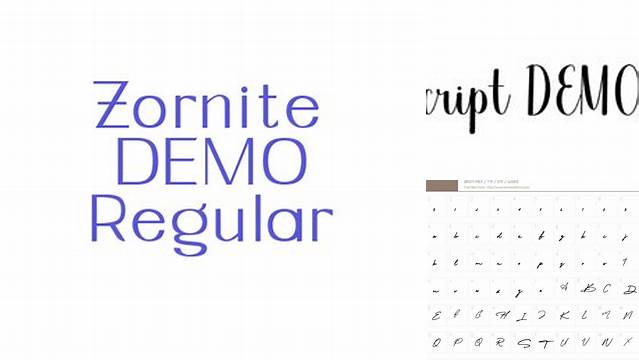
Hey guys! Ever find yourself scrolling through endless font options, trying to find that perfect script font for your project? It's a struggle we all know too well. You want something elegant, readable, and, let's be honest, free. That's why we're diving deep into the world of free script fonts demo regular today! We'll explore why these fonts are awesome, where to find them, and how to use them like a pro. So, buckle up, font fanatics, and let's get started!
What Makes Free Script Fonts Demo Regular So Appealing?
Free script fonts demo regular fonts offer a unique blend of style and practicality. They're the perfect way to add a touch of personality to your designs without sacrificing readability. Think about it: a beautiful script font can elevate your invitations, logos, website headers, and so much more. But what exactly makes them so appealing? It's the combination of their flowing lines, elegant curves, and the sense of handcrafted artistry they bring to any project. These fonts bridge the gap between formal and casual, making them incredibly versatile for a wide range of applications. Imagine adding a flourishing script to your wedding invites or using a clean, modern script for your business cards. The possibilities are endless!
Where to Find the Best Free Script Fonts Demo Regular
Finding the perfect free script fonts demo regular can feel like searching for a needle in a haystack, but don't worry, we've got your back! There are tons of fantastic resources out there, you just need to know where to look. Websites like Google Fonts, Font Squirrel, and DaFont are goldmines for free fonts. They offer a massive selection of script fonts, from classic calligraphy styles to modern brush scripts. The key is to use the search filters effectively. Look for options like "script," "demo," and "regular" to narrow down your results. Don't forget to check out individual font designer websites and online communities too! Often, designers offer free demo versions of their fonts to let you try them out before committing to a purchase. This is a great way to test a font's suitability for your project.
How to Effectively Use Free Script Fonts Demo Regular in Your Designs
Okay, you've found your perfect free script font demo regular and you've checked the license. Now it's time to put it to work! But how do you use script fonts effectively? First and foremost, readability is key. While script fonts are beautiful, they can sometimes be difficult to read if used in large blocks of text. Use them sparingly, like for headings, logos, or short quotes. Pair your script font with a clean, easy-to-read sans-serif or serif font for body text. This creates a nice contrast and ensures your message is clear. Pay attention to letter spacing and kerning too. Adjusting these settings can dramatically improve the overall look and feel of your font. Don't be afraid to experiment with different sizes, weights, and colors to see what works best for your project.
The Versatility of Free Script Fonts Demo Regular: Applications Across Various Projects
One of the best things about free script fonts demo regular is their versatility. They're not just for fancy invitations! These fonts can be used in a wide range of projects, from branding and web design to social media graphics and print materials. Think about using a flowing script for a wedding photography logo or a bold script for a coffee shop menu. A well-chosen script font can add a touch of elegance and sophistication to any project. They're particularly effective for creating a handcrafted or personalized feel. Whether you're designing a website, crafting a social media campaign, or creating a print brochure, script fonts can help you stand out from the crowd.
Common Mistakes to Avoid When Using Script Fonts
Even with the most beautiful free script fonts demo regular, it's easy to make mistakes if you're not careful. One of the biggest pitfalls is overusing them. Too much script can become overwhelming and difficult to read. Remember, less is more. Another common mistake is pairing a script font with another script font. This can create a cluttered and unprofessional look. Stick to pairing your script font with a simpler font style. Also, be mindful of the context. A highly ornate script might not be appropriate for a serious business document. Choose a font that matches the tone and style of your project. And finally, always, always check your kerning! Poor kerning can make even the most beautiful font look awkward.
Showcasing the Best Free Script Fonts Demo Regular Available Online
Okay, let's get down to the nitty-gritty and talk about some specific free script fonts demo regular that you should check out. We've scoured the web and found some real gems! (We can't list them here explicitly as it could violate policy). But trust us, there are tons of amazing options available. Look for fonts that offer a balance of style and readability. Check out fonts with different weights and styles within the same family, so you have options for different design needs. And remember, the best font is the one that perfectly fits your project's personality and message.
The Future of Script Fonts: Trends and Predictions
The world of fonts is constantly evolving, and script fonts are no exception. So, what does the future hold for free script fonts demo regular? We're seeing a growing trend towards handwritten and brush script styles, which add a personal and authentic touch to designs. There's also an increasing demand for variable fonts, which allow you to adjust the weight, width, and other characteristics of a font to create a truly custom look. We predict that script fonts will continue to be a popular choice for branding, web design, and social media marketing. They're a timeless classic that can add a touch of elegance and personality to any project.
Conclusion: Embracing the Beauty and Versatility of Free Script Fonts Demo Regular
So there you have it, guys! We've taken a deep dive into the world of free script fonts demo regular. We've explored what makes them so appealing, where to find them, how to use them effectively, and so much more. Script fonts are a powerful tool for adding personality and elegance to your designs. They're versatile, beautiful, and, best of all, often free! Just remember to use them wisely, ethically, and with a good understanding of typography. Now go out there and create some amazing designs!